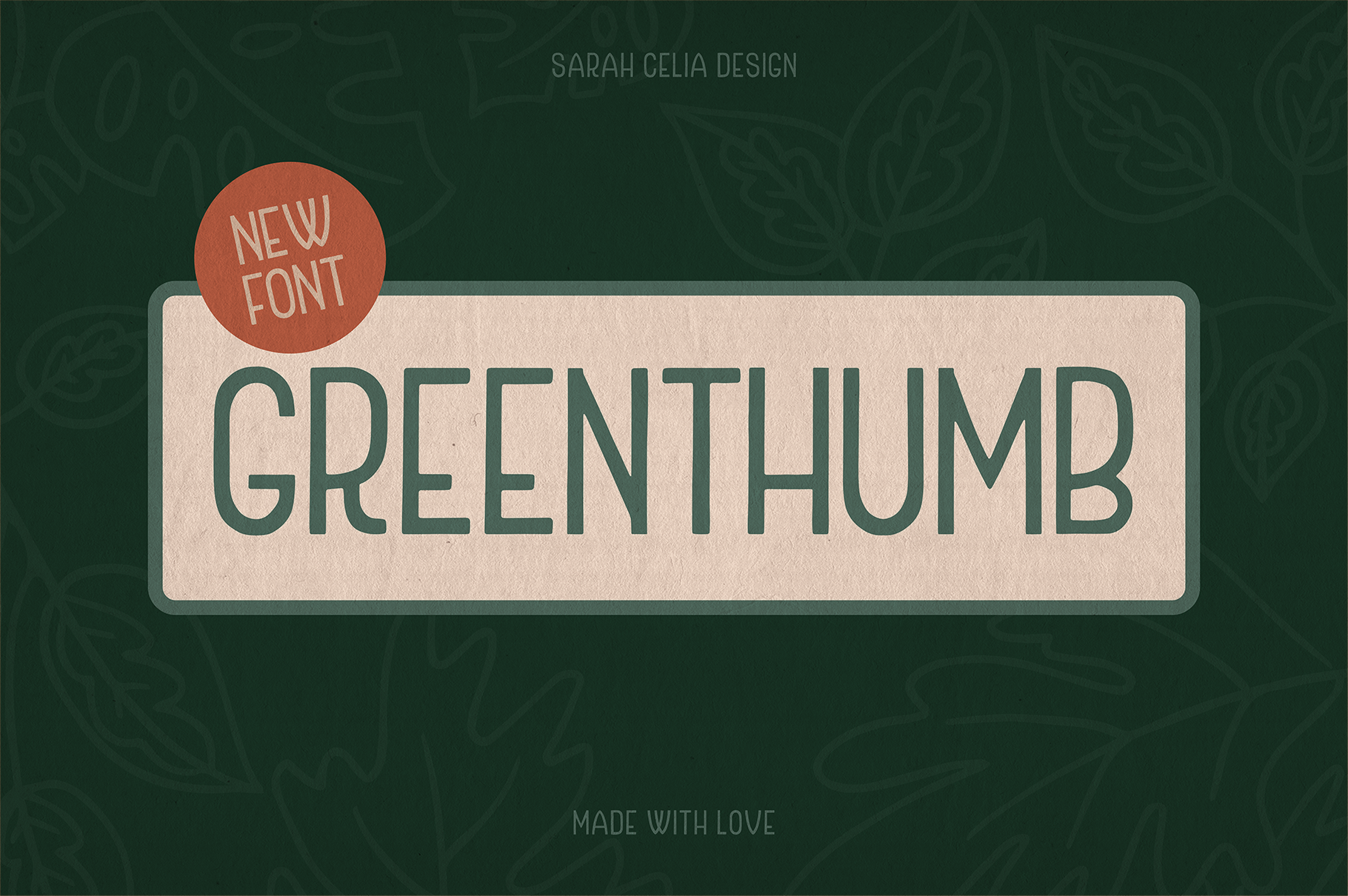
Greenthumb | Sans Serif Display Font
Greenthumb is an earthy and kind of art-deco display font. It's friendly and welcoming, with thin forms, low cross bars and perfect for adding a friendly flair to any design project. This font will be great as a memorable logotype or an impactful headline font grabbing attention.